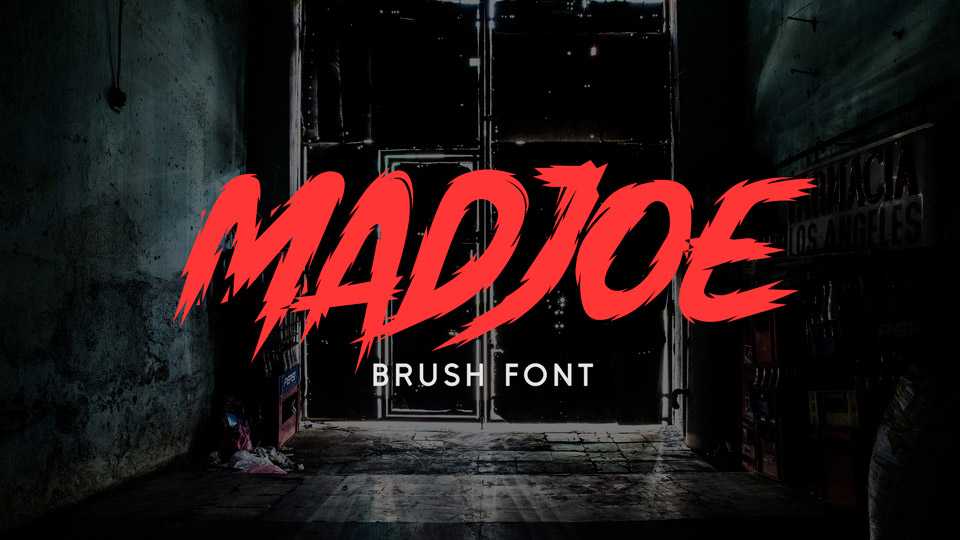
Download Madjoe font, a bold brush typeface that looks strong and powerful. Madjoe font is perfect for posters, headlines, t-shirt prints and other eye-catching messages.
Designer: 160 Studio